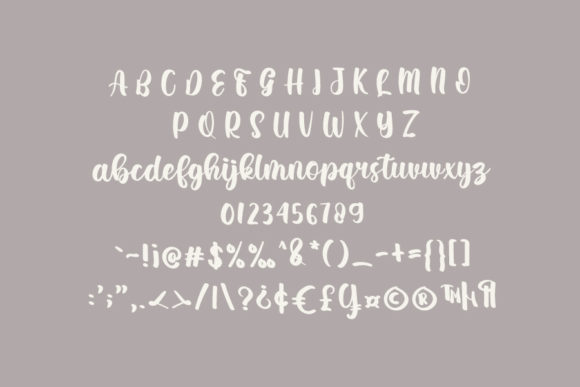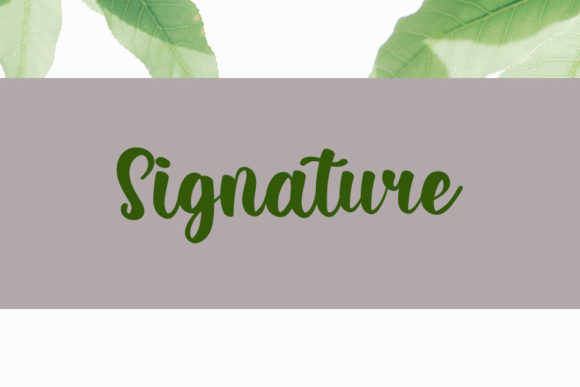
Rainbow Bright Font
db-ku.com - Script & Handwritten -- Rainbow Bright is a friendly handwritten font, carefully designed to become a true favorite. It maintains its classy calligraphic influences while feeling contemporary and fresh.